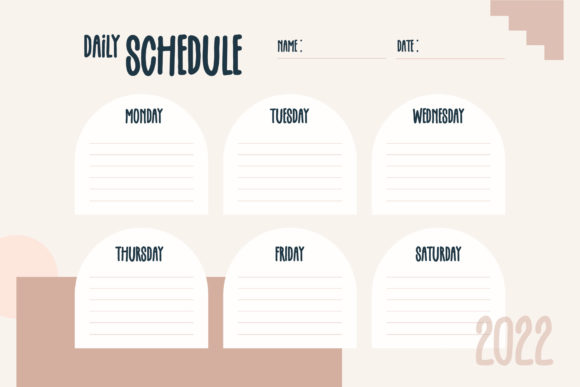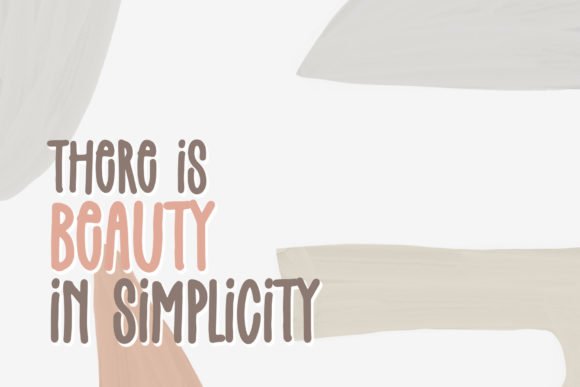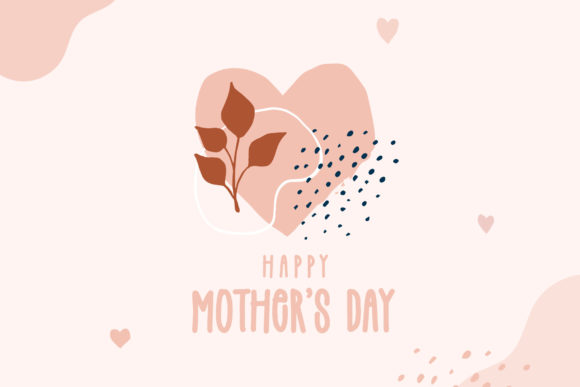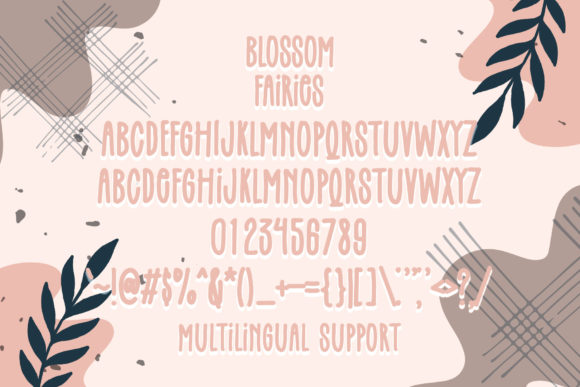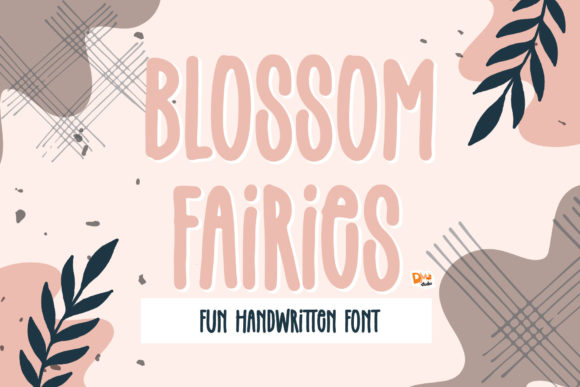
Blossom Fairies Font: Add a Touch of Spring Sweetness to Your Designs
As the seasons change and spring arrives, it’s the perfect time to infuse your designs with a sense of freshness and playfulness. What better way to do that than with the charming Blossom Fairies font? This sweet handwritten font is designed to make your gift designs and crafts sweeter than any other season. In this article, we’ll dive into the world of Blossom Fairies font and explore how you can use it to create stunning designs that capture the essence of spring.
What is Blossom Fairies Font?
Blossom Fairies font is a beautiful, handwritten font that’s perfect for adding a touch of whimsy and charm to your designs. With its delicate and intricate letters, this font is sure to transport your audience to a world of fantasy and wonder. Whether you’re designing gift tags, cards, or crafts, Blossom Fairies font is the perfect choice to make your creations stand out.
Features of Blossom Fairies Font
So, what makes Blossom Fairies font so special? Here are some of its key features:
- Handwritten charm: Blossom Fairies font has a beautiful, handwritten feel that’s perfect for creating unique and personalized designs.
- Delicate letters: The font features intricate and delicate letters that are sure to add a touch of elegance to your designs.
- Whimsical feel: Blossom Fairies font has a playful and whimsical feel that’s perfect for creating designs that are fun and engaging.
- Perfect for spring designs: With its floral and spring-inspired feel, Blossom Fairies font is the perfect choice for creating designs that capture the essence of the season.
How to Use Blossom Fairies Font in Your Designs
Now that we’ve explored the features of Blossom Fairies font, let’s dive into how you can use it in your designs. Here are some ideas to get you started:
- Gift tags and cards: Use Blossom Fairies font to create beautiful gift tags and cards that are perfect for spring occasions.
- Crafts and DIY projects: Add a touch of whimsy to your crafts and DIY projects with Blossom Fairies font.
- Spring-themed designs: Use Blossom Fairies font to create stunning spring-themed designs, such as floral patterns, garden-inspired designs, and more.
- Personalized designs: With its handwritten feel, Blossom Fairies font is perfect for creating personalized designs, such as monograms and custom names.
Tips for Getting the Most Out of Blossom Fairies Font
To get the most out of Blossom Fairies font, here are some tips to keep in mind:
- Experiment with colors: Blossom Fairies font looks stunning in a range of colors, from soft pastels to bright and bold hues.
- Pair with complementary fonts: Pair Blossom Fairies font with complementary fonts to create stunning contrast and visual interest.
- Use in combination with graphics: Use Blossom Fairies font in combination with graphics and illustrations to create stunning designs.
- Play with font sizes: Experiment with different font sizes to create visual interest and hierarchy in your designs.